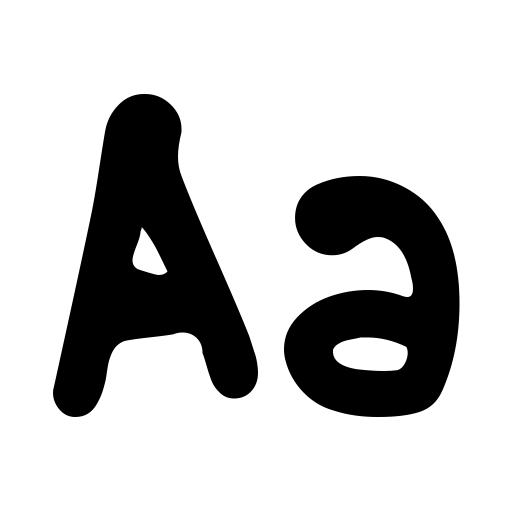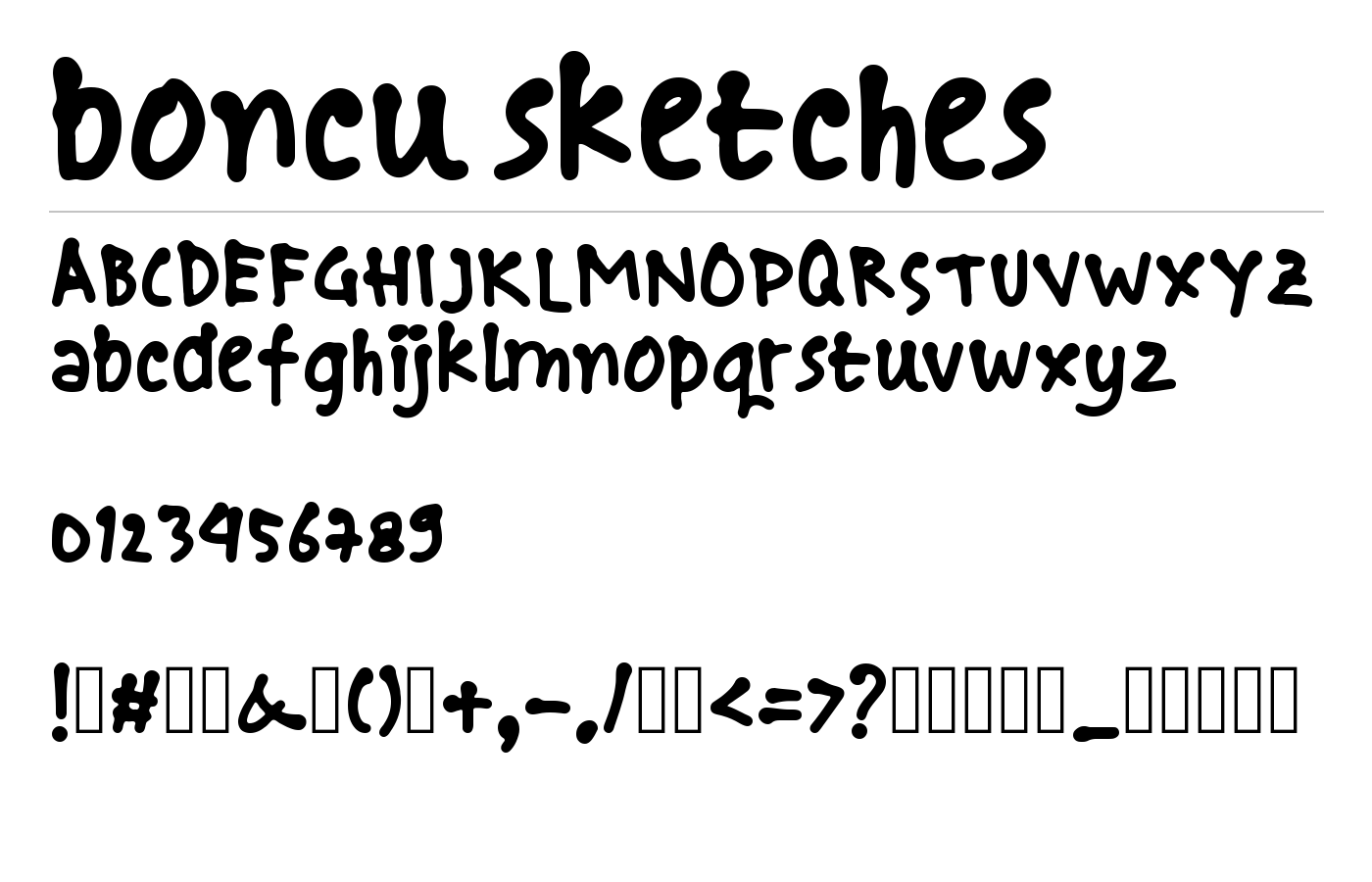
Boncu Sketches is a playful and casual hand-drawn sans serif font with a bold, rounded style that feels friendly and approachable. Its irregular, sketch-like strokes give it a lively, organic personality perfect for informal designs, children’s projects, and creative branding. This font works well for logos, posters, and headlines where a fun and quirky tone is desired.
boncu sketches Font
About boncu sketches Font